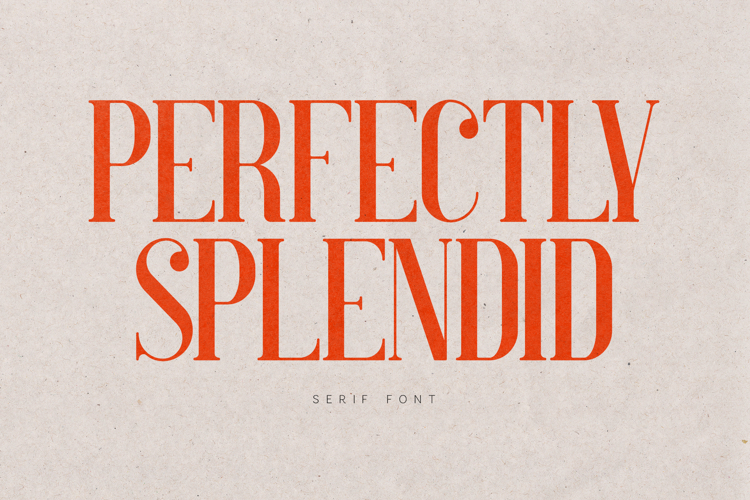
Perfectly Splendid Serif Font Elegant Display
Perfectly Splendid is a refined modern serif font crafted with elegance, contrast, and timeless sophistication. Designed to bring a premium editorial feel, it features high-contrast strokes, sharp serifs, and beautifully balanced proportions.
This typeface is ideal for luxury branding, fashion editorials, logos, and high-end packaging. Its distinctive letterforms create a strong visual presence while maintaining a graceful and minimal aesthetic.
Perfectly Splendid works seamlessly across both bold headlines and refined layouts, making it a versatile choice for designers seeking a modern yet classic serif.
Perfect for• Luxury branding
• Logo design
• Fashion editorials
• Magazine layouts
• Packaging design
• Social media graphics
• High-contrast serif style